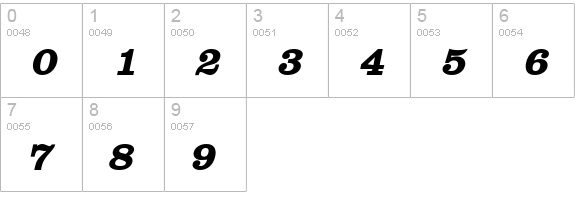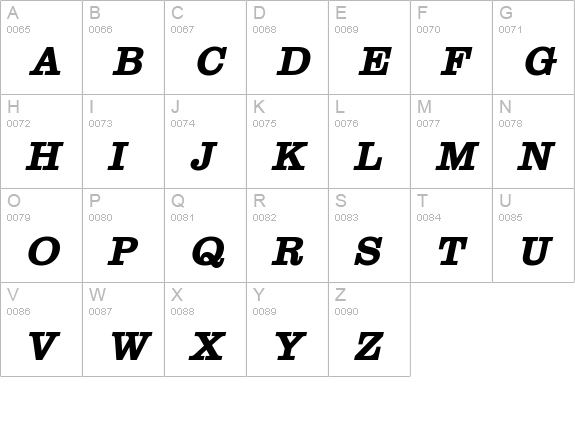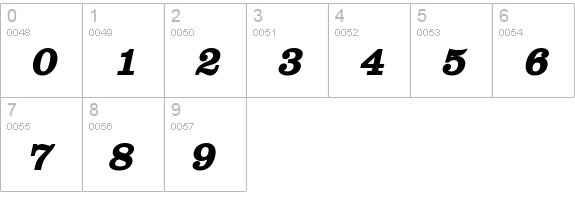
Clare Bold Italic Font Details
Clare Bold Italic is a strong, high-contrast, italic variant in the Clare typeface family \xE2\x80\x94 well suited to headlines, attention-grabbing titles, and strong calls-to-action.
The Clare Bold Italic font exudes a sense of sophistication and modernity with its bold yet elegant italic design. Perfect for making a statement or adding a touch of flair to your projects, this versatile typeface demands attention while remaining effortlessly stylish. What sets Clare Bold Italic apart is not only its striking appearance but also its accessibility - it is available for free download at FontsMarket.com. This means you can easily incorporate this eye-catching font into your designs without breaking the bank. Whether you're working on a professional project, personal creative endeavor, or anything in between, Clare Bold Italic is sure to elevate your work and leave a lasting impression.